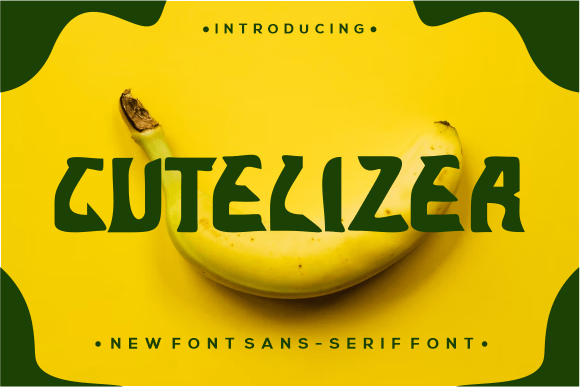
Embark on an enchanting typographic journey with Cutelizer Font, a captivating display font brimming with charm and versatility. Let your creativity soar as you explore the boundless design possibilities offered by this playful and whimsical font.
With its innate ability to elevate your designs to remarkable heights, Cutelizer Font is the perfect choice for those seeking to leave an indelible mark. Whether you're crafting eye-catching advertising copy, designing captivating logos, or creating vibrant social media posts, this font has the power to transform your words into captivating works of art.
Immerse yourself in a world of imagination and wonder as you discover the magic of Cutelizer Font. The boundless potential of this font allows you to express your individuality and create designs that resonate with your audience. From playful and lighthearted to elegant and sophisticated, Cutelizer Font effortlessly adapts to your vision, ensuring your designs always hit the mark.
So embrace the allure of Cutelizer Font and embark on a creative adventure like no other. Let your imagination run wild as you explore the vast design possibilities that await you. With this versatile and enchanting font at your fingertips, the only limit is your imagination. Unleash your creativity and prepare to be amazed by the stunning results Cutelizer Font can bring to your designs.